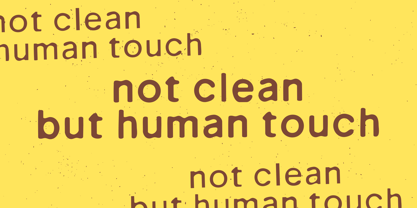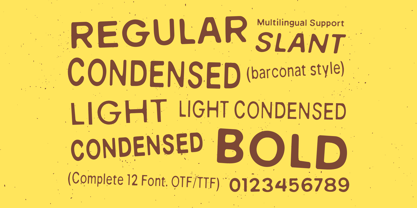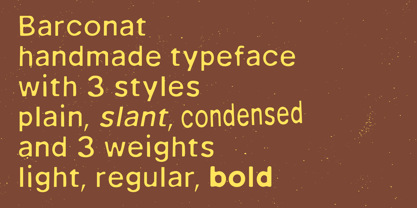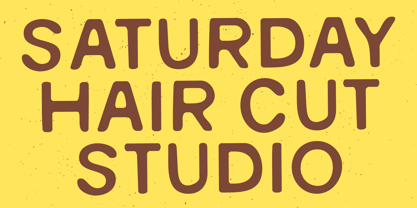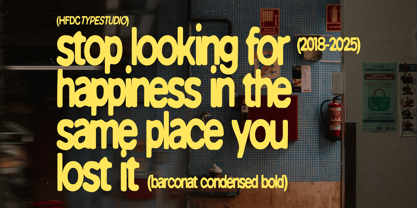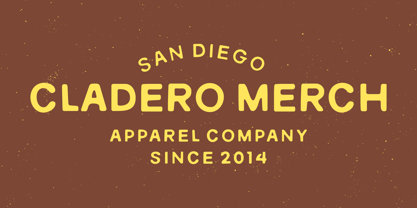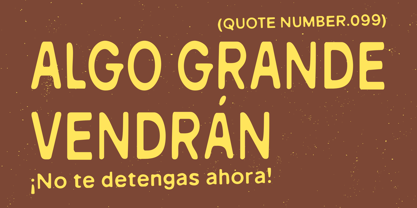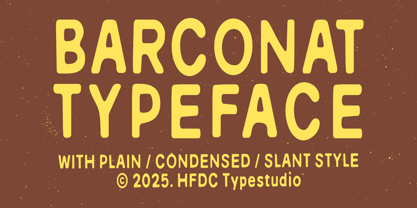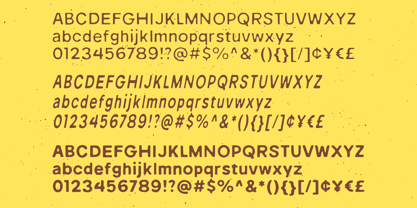
Barconat
by Holis.Mjd
The Barconat Font Family was designed by Holis Majid and published by Holis.Mjd. Barconat contains 12 styles and family package options. More about this family
Introducing Barconat Rough Sans Serif, a versatile font that effortlessly combines a vintage charm with a modern twist. This condensed sans serif typeface features a unique blend of rough textures and smooth edges, making it an ideal choice for various design projects. Whether you’re crafting a logo, packaging, or branding materials, Barconat Rough brings a soft yet distinct personality to your text. Its rounded forms and bold italic options provide a captivating visual appeal, while the light style offers a gentle touch for delicate designs.
Barconat